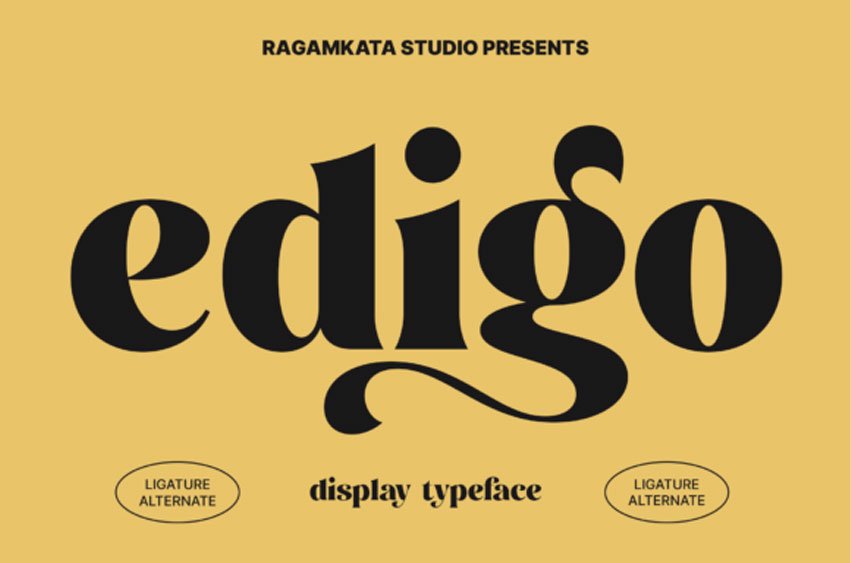
Edigo Font With its bold strokes and vintage-inspired curves, Edigo brings a touch of classic elegance to any project.
Whether you’re designing logos, headlines, or posters, this modern retro display font is sure to make a statement in today’s design landscape.